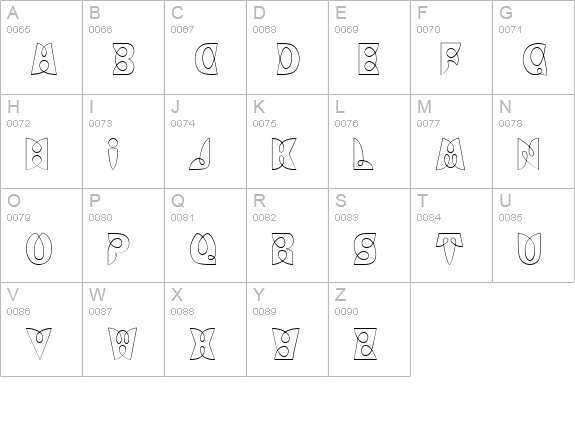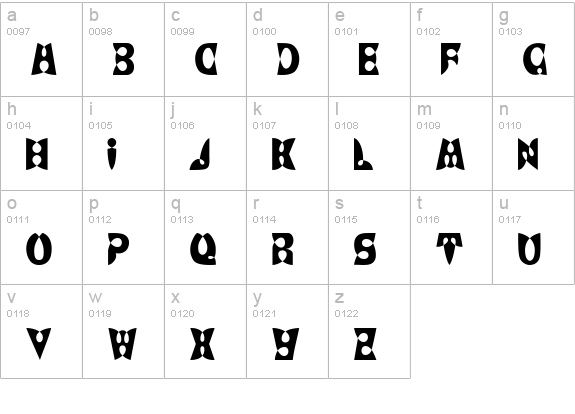
LoopDeLoop Medium Font Details
LoopDeLoop Medium is a balanced, medium-weight variant in the LoopDeLoop typeface family \xE2\x80\x94 well suited to sub-headlines, navigation, and balanced editorial work.
LoopDeLoop Medium font is a stylish and versatile typeface that brings a playful and modern touch to any design project. With its unique loops and curves, this font exudes creativity and personality. Perfect for branding, packaging, posters, and more, LoopDeLoop Medium stands out with its bold yet elegant appearance. Best of all, LoopDeLoop Medium is available for free download at FontsMarket.com. Whether you're a designer looking to add a fun twist to your work or a business owner seeking a fresh look for your brand, this font is a fantastic choice. Don't miss out on the opportunity to enhance your designs with LoopDeLoop Medium and make a lasting impression. Download it today and let your creativity run wild!